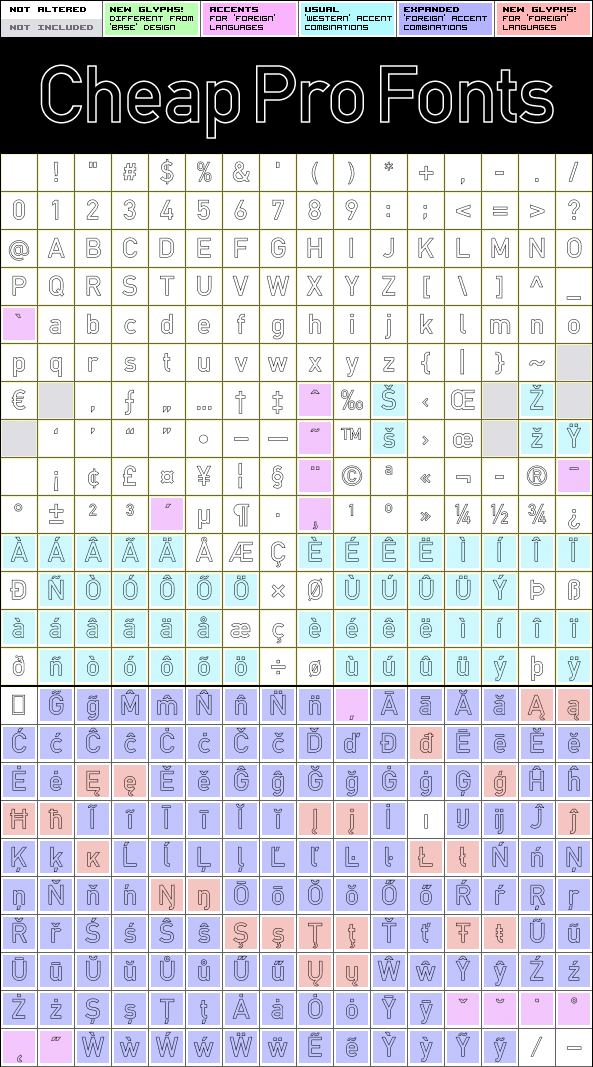
DINfun Pro Outline
DINfun Pro Outline by Roger S. Nelsson
An outline (and multilingual) variant of the classic DIN 1451 Mittelschrift. The stroke expansion is equal on both sides of the original outline, so you can use this together with the Plain version for layer effects - the Outline will cover the Plain, and with built-in trapping. ;)
DINfun Pro Outline is a professionally reworked font that contains an extended character set for setting text in 65 languages requiring more than the basic A-Z!